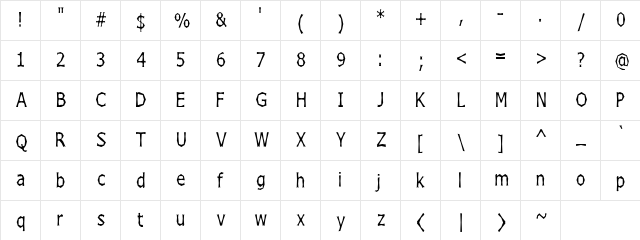
Grize Done Regular Font Preview
Grize Done Regular
Design Context for Grize Done Typeface
Grize Done is a composed and adaptable typeface that performs quietly and consistently across a wide range of design contexts.